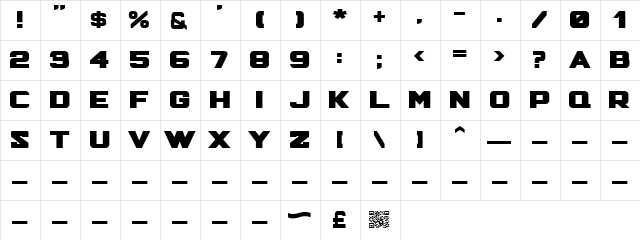
Hunter Squared Regular
Design Context for Hunter Squared Typeface
Hunter Squared is a composed and adaptable typeface that performs quietly and consistently across a wide range of design contexts.